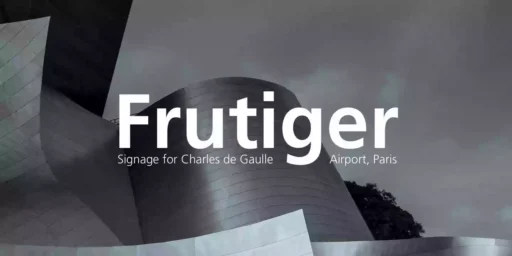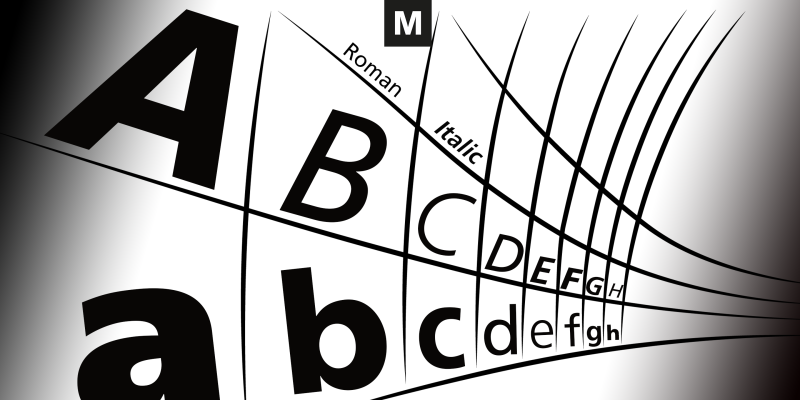
Frutiger Font
Frutiger Font is a renowned and popular typeface in the design industry. The clear and legible font is pivotal for its widespread popularity among designers across many…
Frutiger Font is a renowned and popular typeface in the design industry. The clear and legible font is pivotal for its widespread popularity among designers across many spheres. Conceived by Swiss typeface designer Adrian Frutiger in the latter part of the 1960s, the Frutiger font has been a part of the design world for decades and remains one of the symbols of its community.
The birth of Frutiger Font can be slotted in the 1960s when Adrian Frutiger was assigned to design a new signage system for the Charles de Gaulle Airport in Paris. The signage already in existence at the airport was not consistent in its appearance and was, in some cases, too small, making it hard to read. Therefore, it was up to Frutiger to develop a typeface that would be easily readable even from a distance and in different light conditions.
Ignited by the necessity of comprehension and legibility, Frutiger set out to make up with what would be known as Frutiger Font in the future. Rather than just making the forms of each letter, he devoted his time to paying particular attention to proportions, space, and stroke weight. Consequently, it is the kind of font that is both easy to read and attractive.
Frutiger lettering is a popular font for print applications and digital design projects. It does not limit the area of its use because it can be applied anywhere – for example, in the design of signs, branding, editorial, and web.
Regarding signage, Frutiger Font ostracizes legibility, showing off the font’s potential to be used gracefully at airports, train stations, and other public spaces where clear communication is necessary. Its simple and modern look makes it a perfect choice for many branding projects. Indeed, it brings professionalism and officiality to the surface.
Once we have decided to use the Frutiger font in the design projects, we must consider the best possible ways to apply it. An important task is to provide sufficient spacing between letters by correcting learning to preserve such characters. Furthermore, font features such as size, weight, and style can be leveraged to create a visual hierarchy, making a design more attractive.
Key Features of Frutiger Font Description Design Frutiger is a sans-serif typeface created by designer Adrian Frutiger in 1968. Its clean and modern appearance is why it is widely used in advertising. Characteristics Its characteristics include the open and expansive letter shapes, the high height between lines, and the unusual glyphs designed for the lowercase letters “a” and “g.” Moreover, it is versatile, having two weight categories, from thin to fat, and two style categories, including italic and condensed text. Usage This font is employed in airports, transportation systems, and several public spaces because of its readability and simplicity. It is also an integral element of branding and advertising, as well as in print and digital media. History The font was first used at Charles de Gaulle Airport in Paris, France. Later, it was expanded into a whole font family and quickly became one of the world’s most widely popular sans-serif fonts.Frutiger font stands for easy-reading features, and its appearance is as simple as ever. It has a rounded letter-shaped glance and spacious measurements that look readable even in small sizes. The weight of the stroke uniformity is preserved through the family of the typeface, making it coherent and amicable.
One of the primary points separating this font from other typefaces is that it is humanist. Often, sans-serif typefaces are perceived to be cold and merciless. Nevertheless, the Frutiger Font has a certain nostalgia and friendliness that the Type font possesses. Its incredible human-like ability to adapt also makes it approachable and easy to read, making it the choice for so many applications that this technology can be used for nowadays.
In addition to the prominent features of the Frutiger typeface, the possibility of customizing should also be considered. It has weights, styles, and widths, allowing designers to adapt their designs. From Frutiger Light, delicate and elegant, it is possible to render the text black with Frutiger Black.
We can consider other typefaces with similar designs that can be substituted. Another option is Myriad Pro, which has a substantial risk of legibility and style. Another option may be Avenir, which shares a humanist feel and applicability.
When selecting an alternative font, the specific design needs and the communication of the message the project aims to convey should be considered. All fonts have attributes and bring exceptional value for particular design styles or brand identities.
Frutiger Font was a highly popular typeface created by Adrian Frutiger in 1968. It is a sans-serif font, and it is mostly used in street signs, branding, and ads.
Designer Adrian Frutiger created Frutiger Font at the Charles de Gaulle Airport in Paris. The next year, it became commercially available when Linotype released it as a font.
Frutiger Font is a cute, stylish font with a humanist, evergreen look. It has multiple weights as well as italics that suggest it has sliding in different design ventures. Besides, it has slight “a” and “Q,” distinguishing it from other sans-serif fonts.
The Frutiger Typeface is often used in signboards, branding, and advertising. It is also heavily included in print and digital media, including magazines, books, and web pages.
What is Frutiger Font good for?
Frutiger Font is a Sans Serif Fonts typeface tagged Condensed, Frutiger, Modern, Readable. It works well for headlines, logos, posters, social media graphics and branding projects that need a distinctive sans serif fonts look.